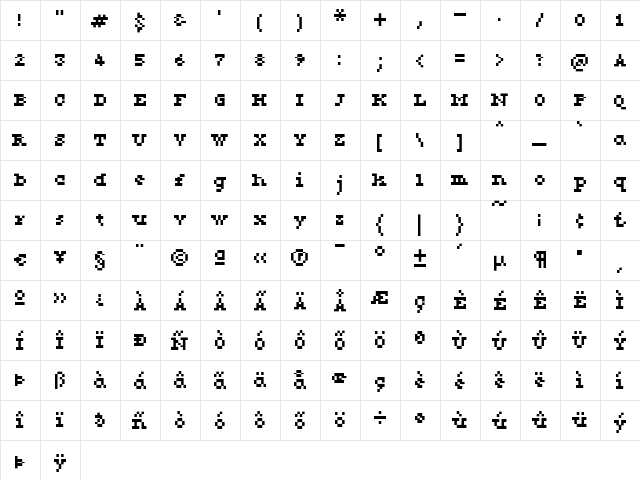
KareFiveDotsSerif Regular
Design Context for KareFiveDotsSerif Typeface
KareFiveDotsSerif celebrates the constraints of early digital type, turning pixel geometry into a distinctive and immediately recognisable style.
A natural choice for retro game titles, chiptune music branding, 8-bit UI, and digital nostalgia projects.